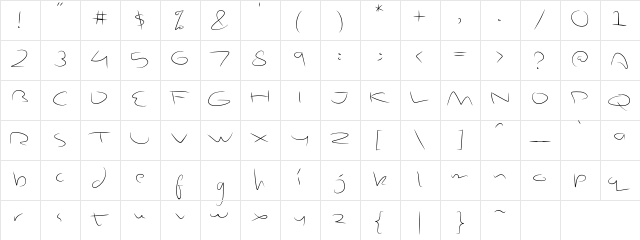
Dunk Godox Regular
Design Context for Dunk Godox Typeface
Dunk Godox is a composed and adaptable typeface that performs quietly and consistently across a wide range of design contexts.